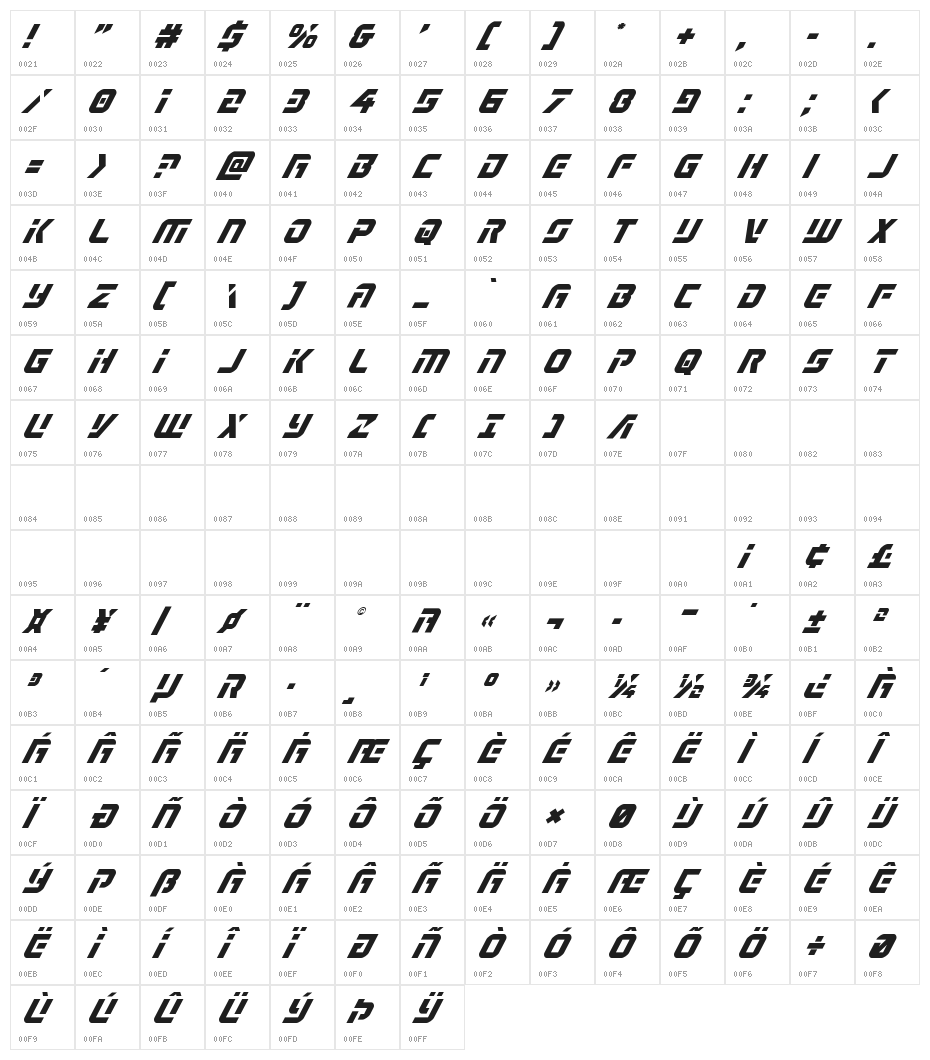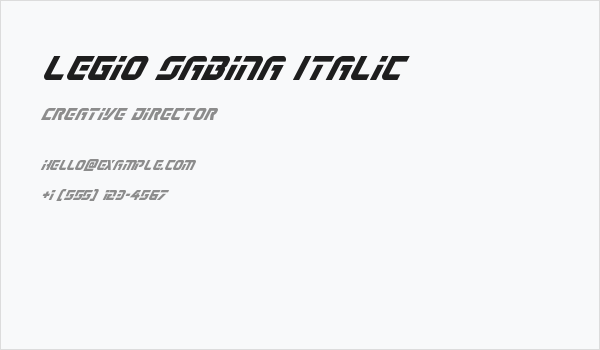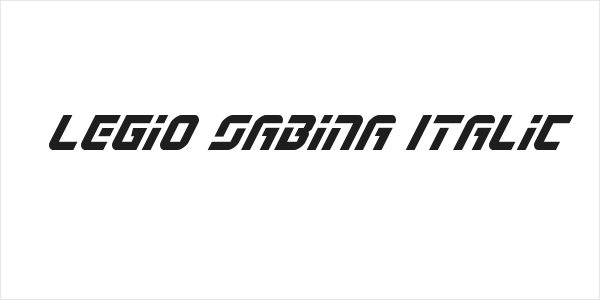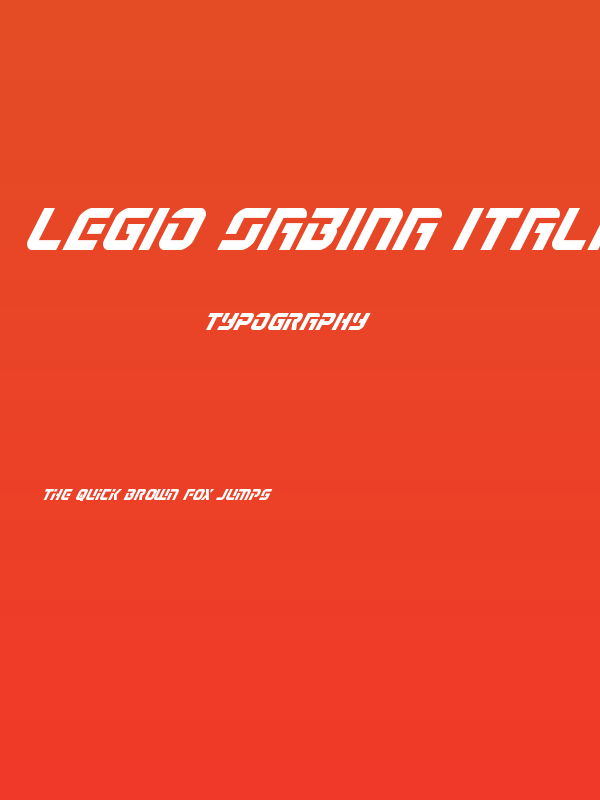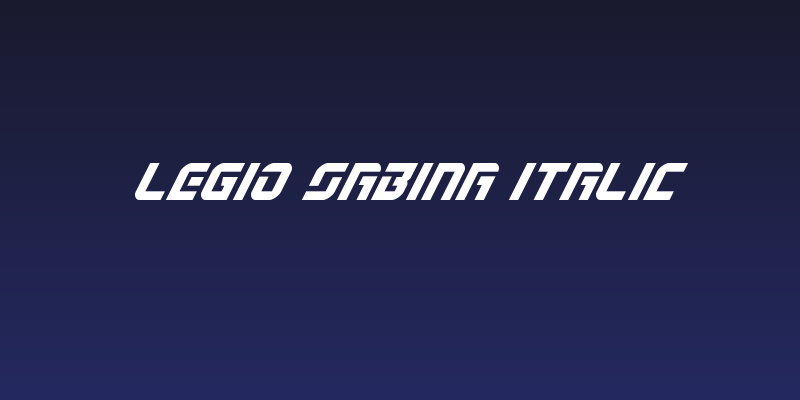
Legio Sabina Italic Font
Legio Sabina Italic Description
This font features a bold, italicized style with a futuristic and dynamic appearance. The characters are slanted, giving a sense of motion and speed. The strokes are thick and consistent, providing a strong visual impact. The geometric shapes and sharp angles contribute to its modern and edgy look. This font is highly legible and stands out due to its unique design, making it suitable for attention-grabbing applications. The uppercase and lowercase letters maintain a cohesive style, while the numbers and special characters integrate seamlessly with the overall aesthetic.
Proposed ProjectsIdeal for sports branding, technology logos, video game titles, and dynamic posters.